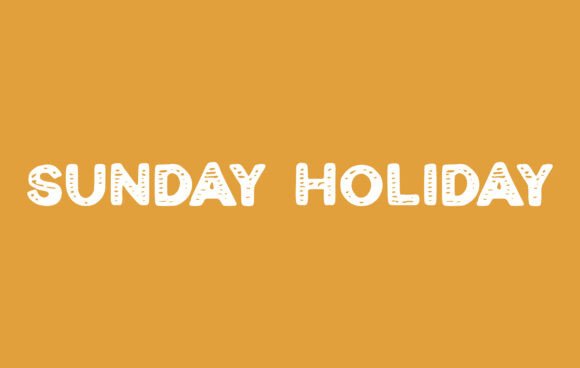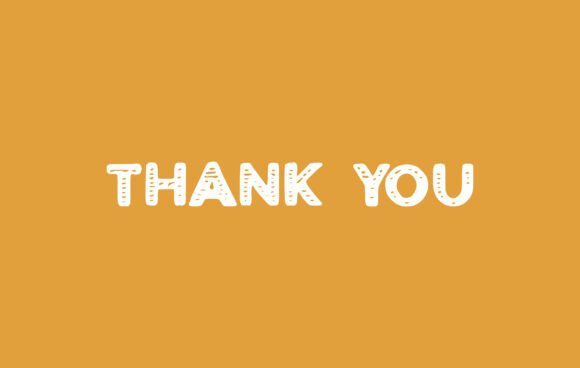
Introduction to Orleans Font
Orleans font is an authentic handwritten font with a romantic touch.
Key Features of Orleans Font
Why Choose Orleans Font?
Orleans Font offers exceptional quality and versatility, making it a valuable addition to your design toolkit. Whether you’re creating for personal projects or commercial use, Orleans Font delivers professional results.